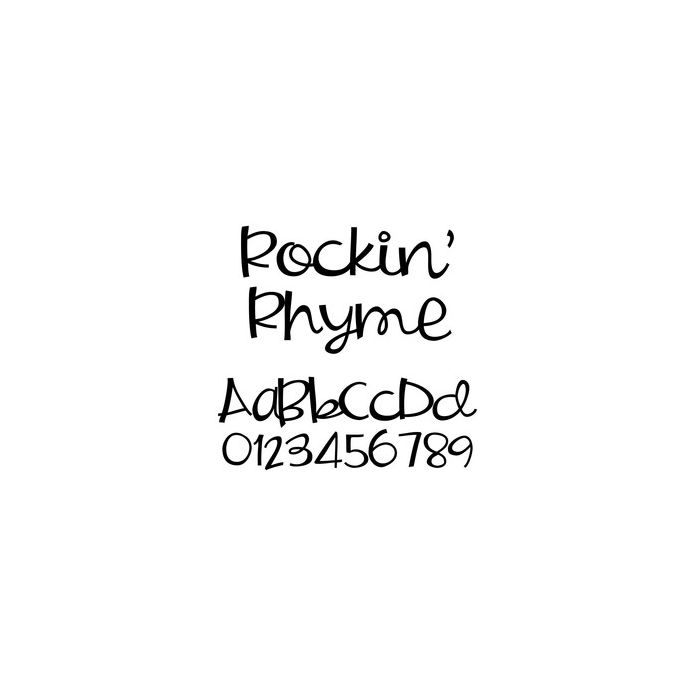
This beautiful journaling script makes great cards, titles, perfect for scrapbooking and more! For more fun fonts like this please visit: http://www.letteringdelights.com/lettering/fonts-c1c3